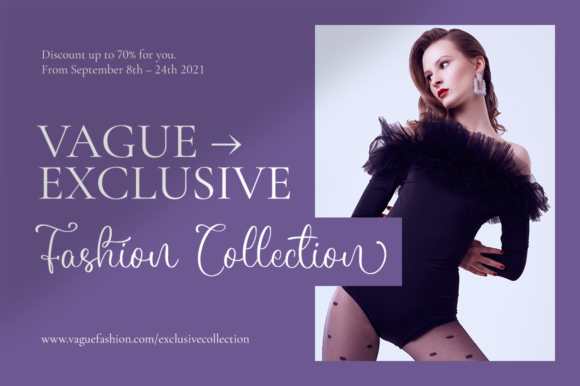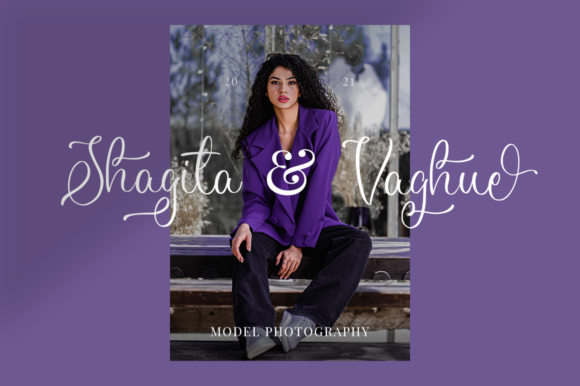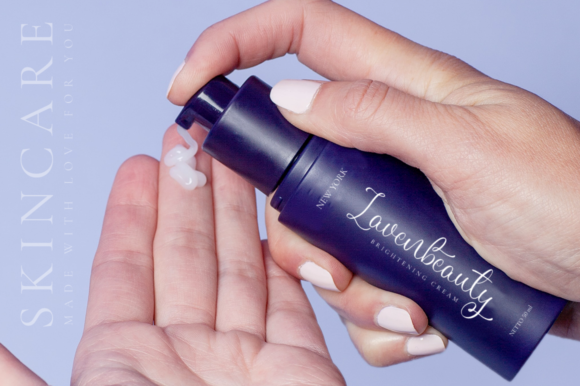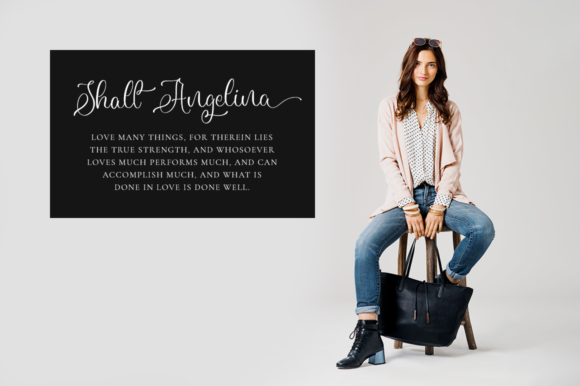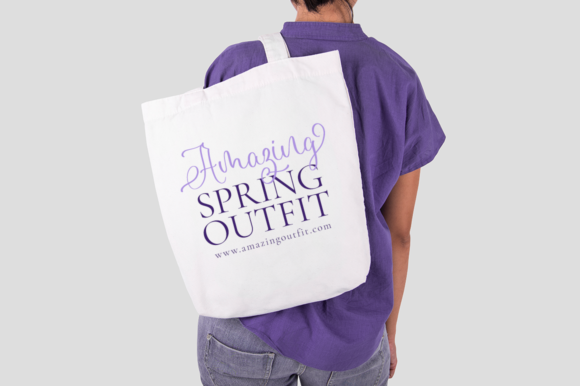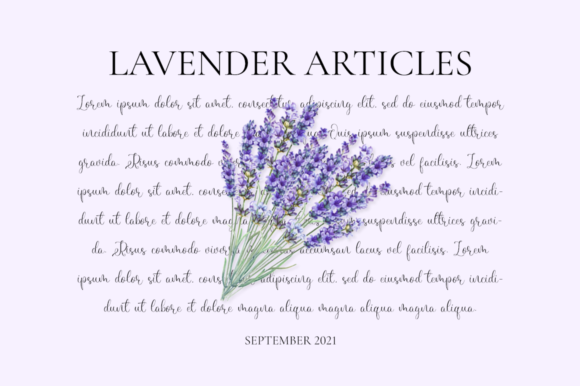
Discover the Elegance of Avengeline Font: A Delicate Script Font for Designers and Crafters
Are you looking for a font that exudes elegance and class? Look no further than Avengeline, a lovely and delicate script font that is perfect for designers and crafters alike. With its PUA encoding, Avengeline offers easy access to a wide range of amazing glyphs and ligatures, making it an ideal choice for a variety of design projects.
What is Avengeline Font?
Avengeline is a beautifully crafted script font that is designed to add a touch of elegance and sophistication to any design project. Its delicate lines and curves create a sense of refinement and luxury, making it perfect for use in high-end branding, packaging, and advertising materials.
One of the standout features of Avengeline is its PUA (Private Use Area) encoding. This means that the font includes a range of additional glyphs and ligatures that can be accessed easily using a keyboard shortcut or through a design program. This feature makes it easy to add unique and creative touches to your designs, setting them apart from the competition.
Features of Avengeline Font
So, what makes Avengeline such a great choice for designers and crafters? Here are just a few of its key features:
- Delicate script style: Avengeline’s script style is both elegant and refined, making it perfect for use in high-end design projects.
- PUA encoded: With PUA encoding, accessing additional glyphs and ligatures is easy, giving you more creative options for your designs.
- Wide range of glyphs and ligatures: Avengeline includes a wide range of glyphs and ligatures, allowing you to add unique touches to your designs.
Uses for Avengeline Font
Avengeline is a versatile font that can be used in a wide range of design projects, including:
- Branding and packaging: Avengeline’s elegant script style makes it perfect for use in high-end branding and packaging materials.
- Advertising and marketing: Add a touch of sophistication to your advertising and marketing materials with Avengeline’s refined script style.
- Stationery and cards: Avengeline is perfect for use in stationery and card designs, adding a touch of elegance and refinement to your creations.
- Digital design: Avengeline can also be used in digital design projects, such as website headers, social media graphics, and more.
Tips for Using Avengeline Font
Here are a few tips for getting the most out of Avengeline:
- Experiment with different sizes and colors: Avengeline looks great in a range of sizes and colors, so don’t be afraid to experiment to find the perfect look for your design.
- Pair with other fonts: Avengeline pairs well with a range of other fonts, so try combining it with different fonts to create a unique look.
- Use the glyphs and ligatures: Don’t forget to take advantage of Avengeline’s PUA encoding and use the additional glyphs and ligatures to add unique touches to your designs.
Avengeline is a beautiful and elegant script font that is perfect for designers and crafters looking to add a touch of sophistication to their designs. With its PUA encoding and wide range of glyphs and ligatures, Avengeline offers endless creative possibilities. Whether you’re working on a branding project, creating stationery, or designing for digital, Avengeline is a great choice.